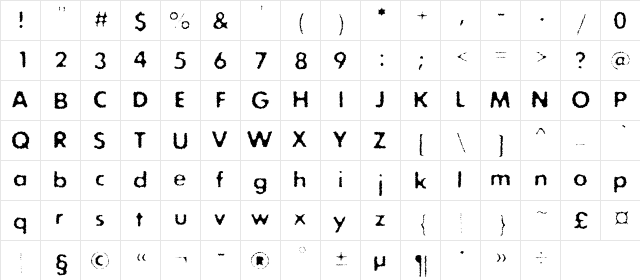
ExposureCOneRough Regular
Design Context for ExposureCOneRough Typeface
ExposureCOneRough embraces imperfection — its rough, textured character adds raw authenticity to designs that want to feel lived-in and unconventional.
Suited to punk-influenced zines, underground music branding, streetwear, and raw, anti-corporate design.
Pro Tip: Pair ExposureCOneRough with intentionally raw or lo-fi design elements. Fighting against it with overly polished surroundings will undermine its personality.